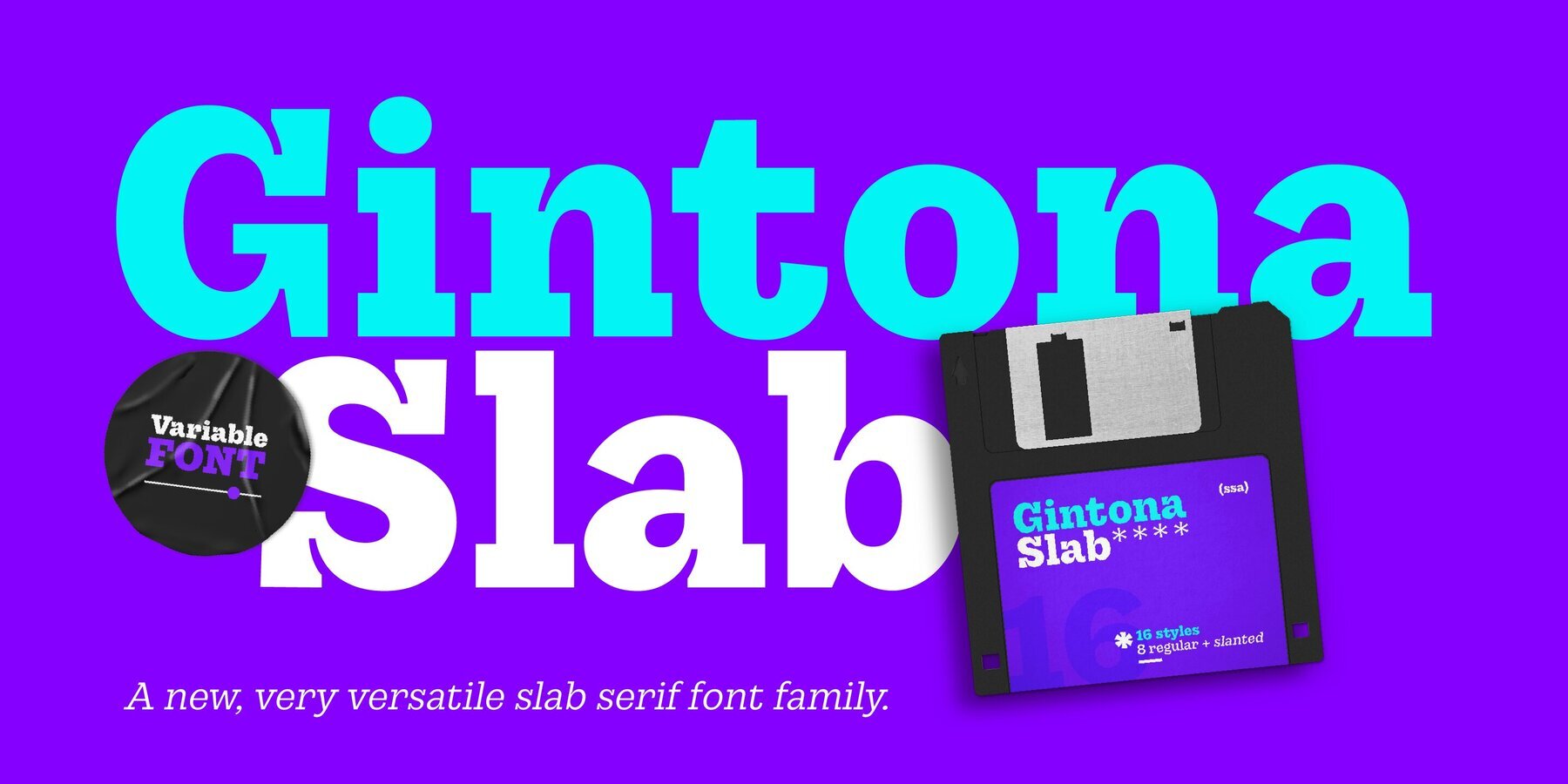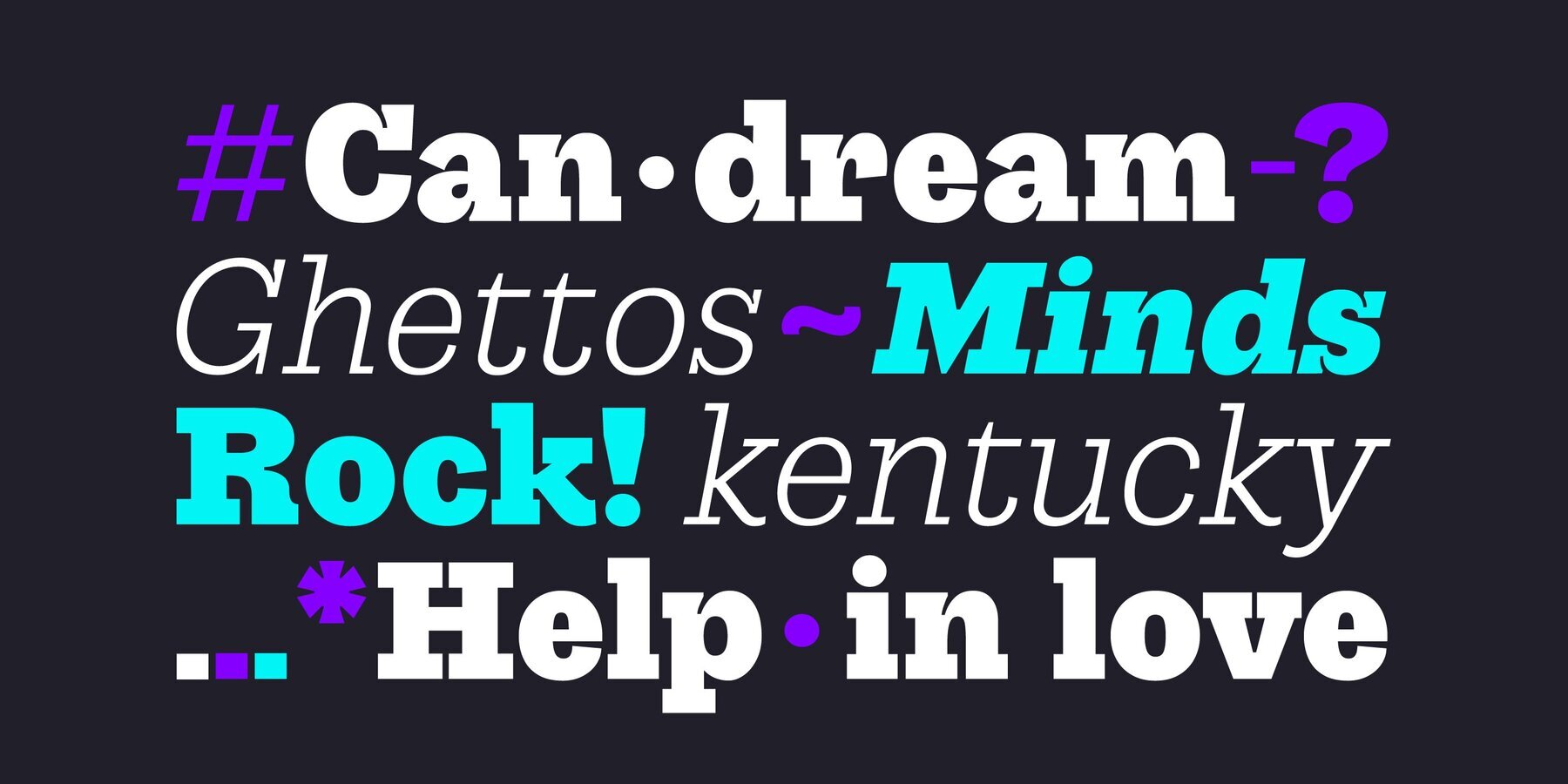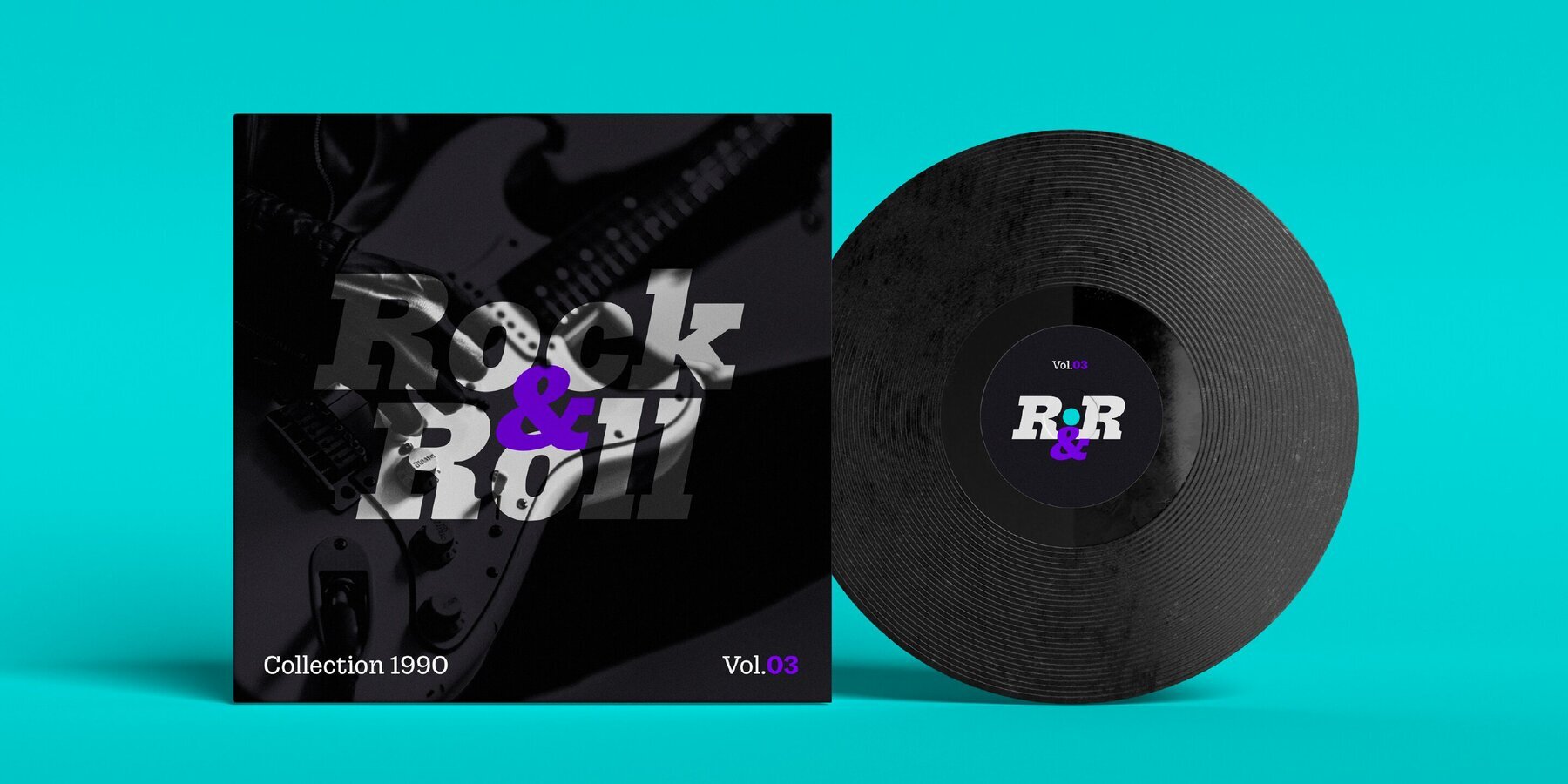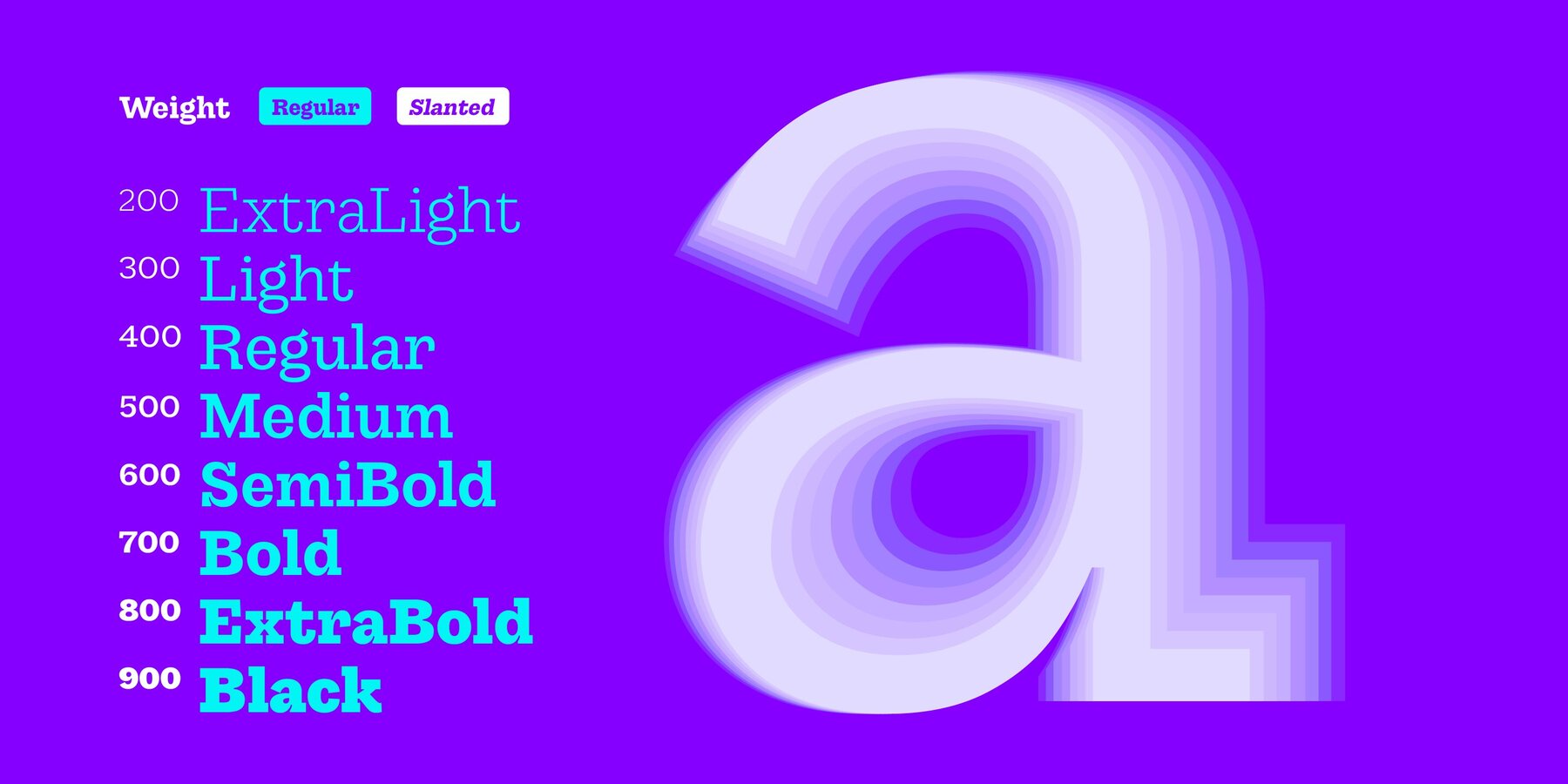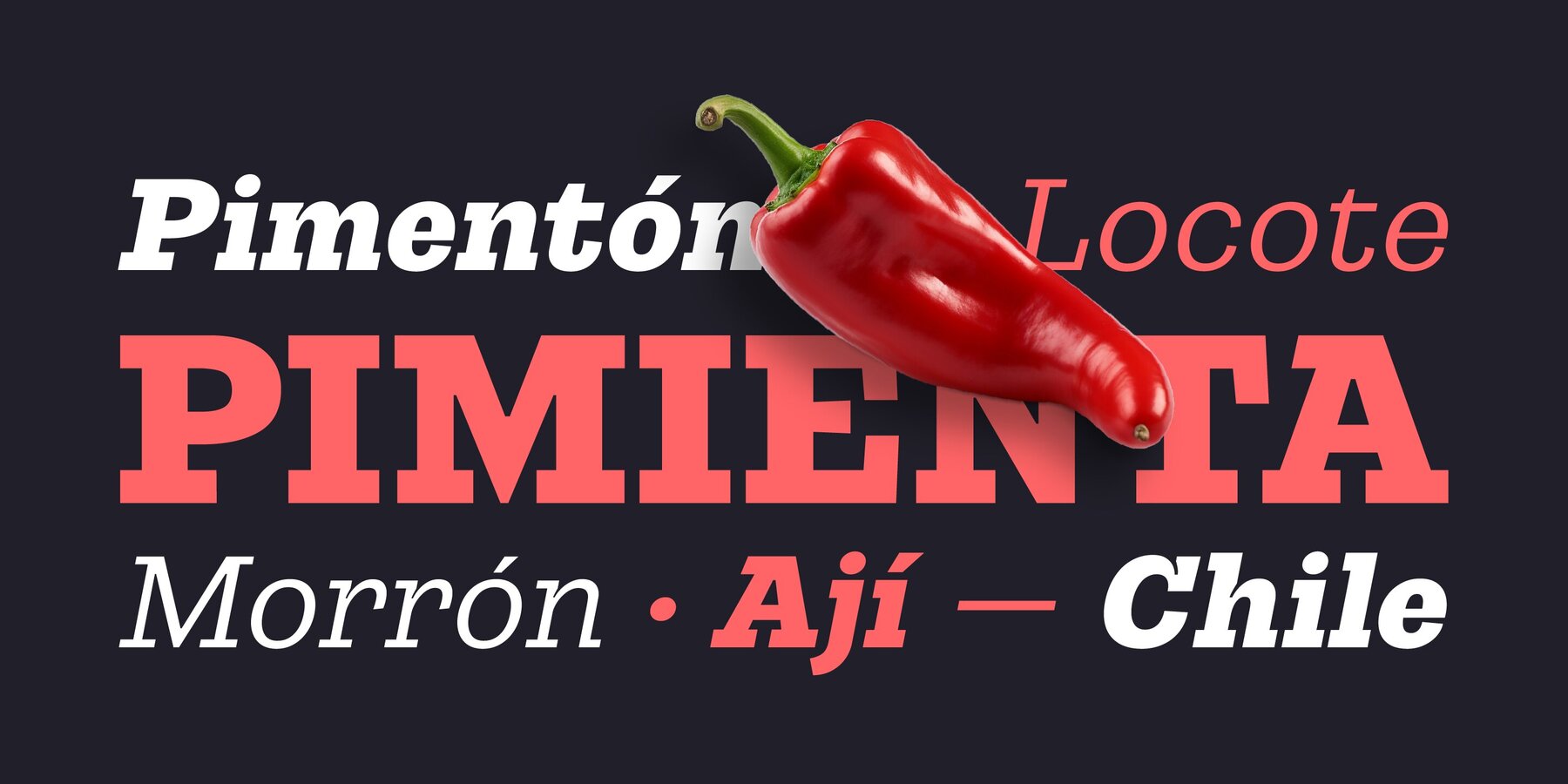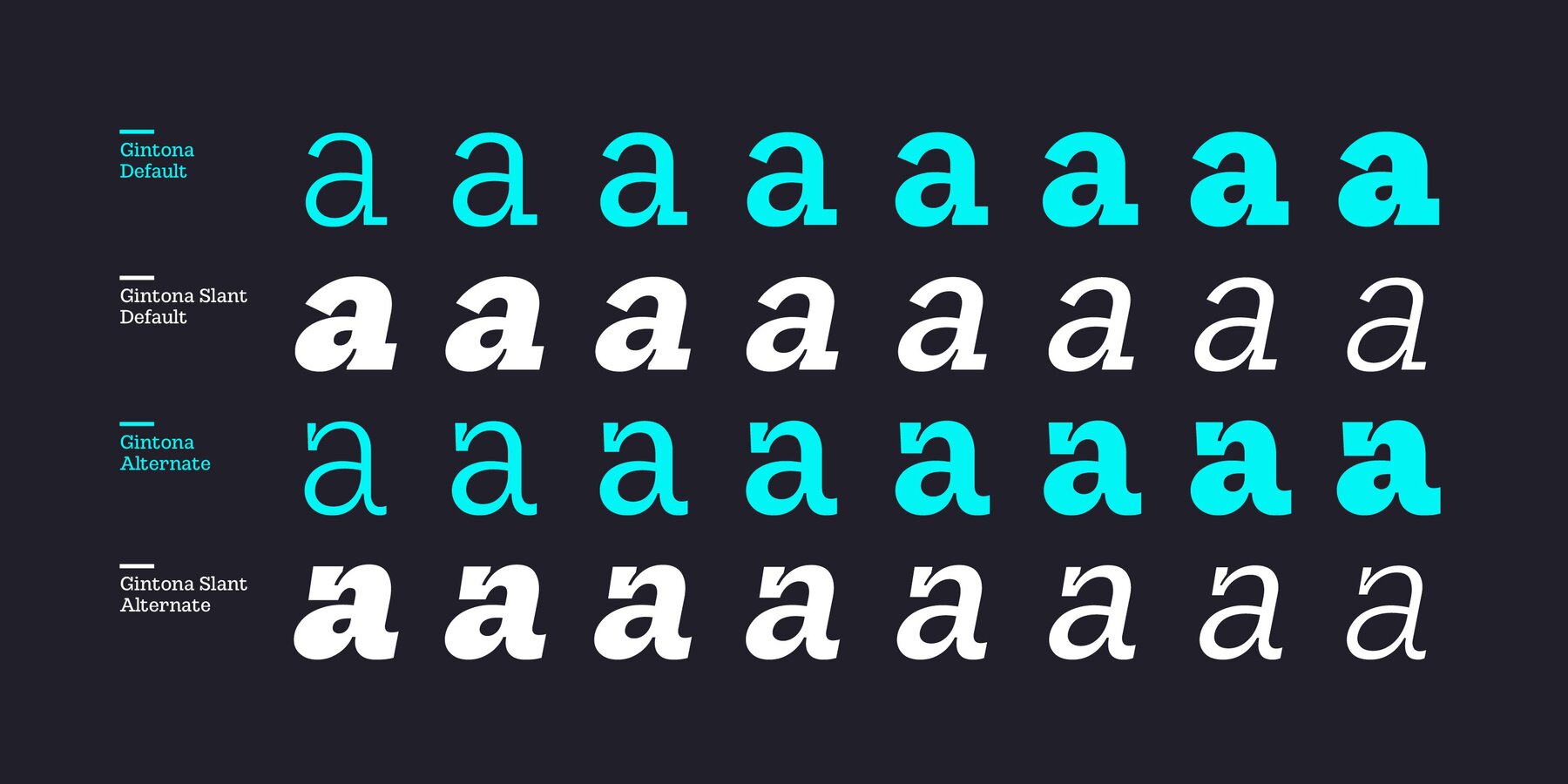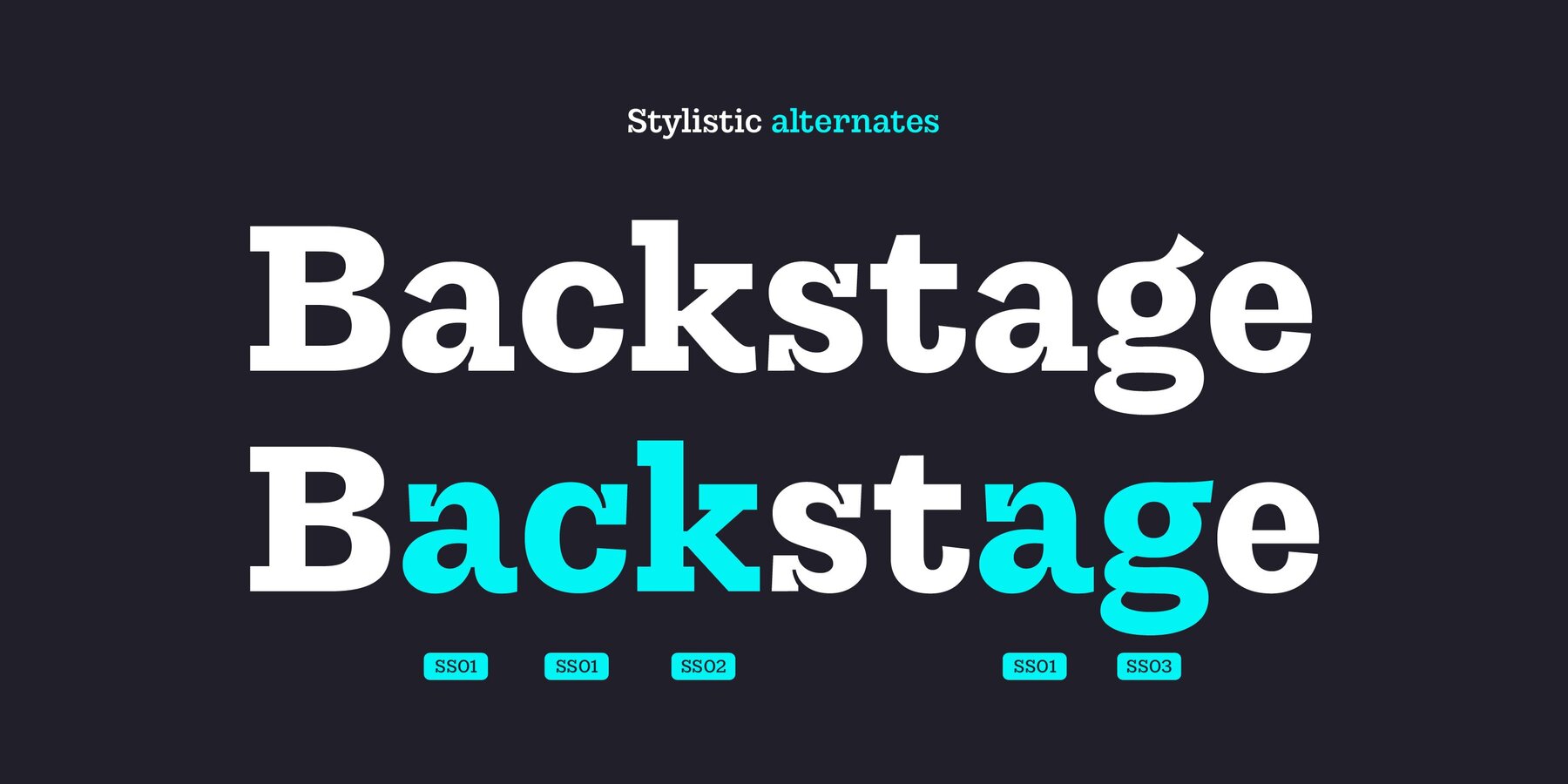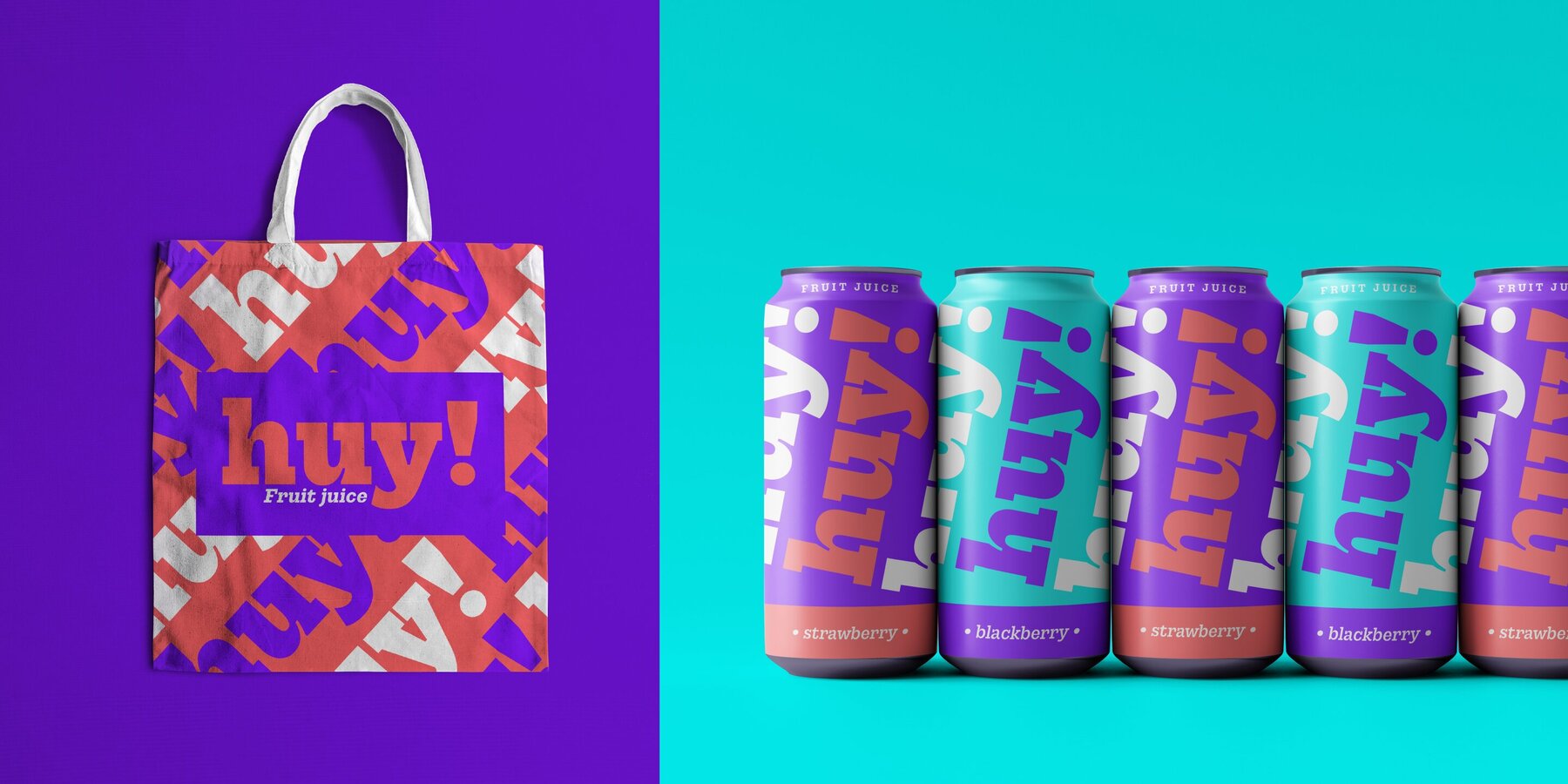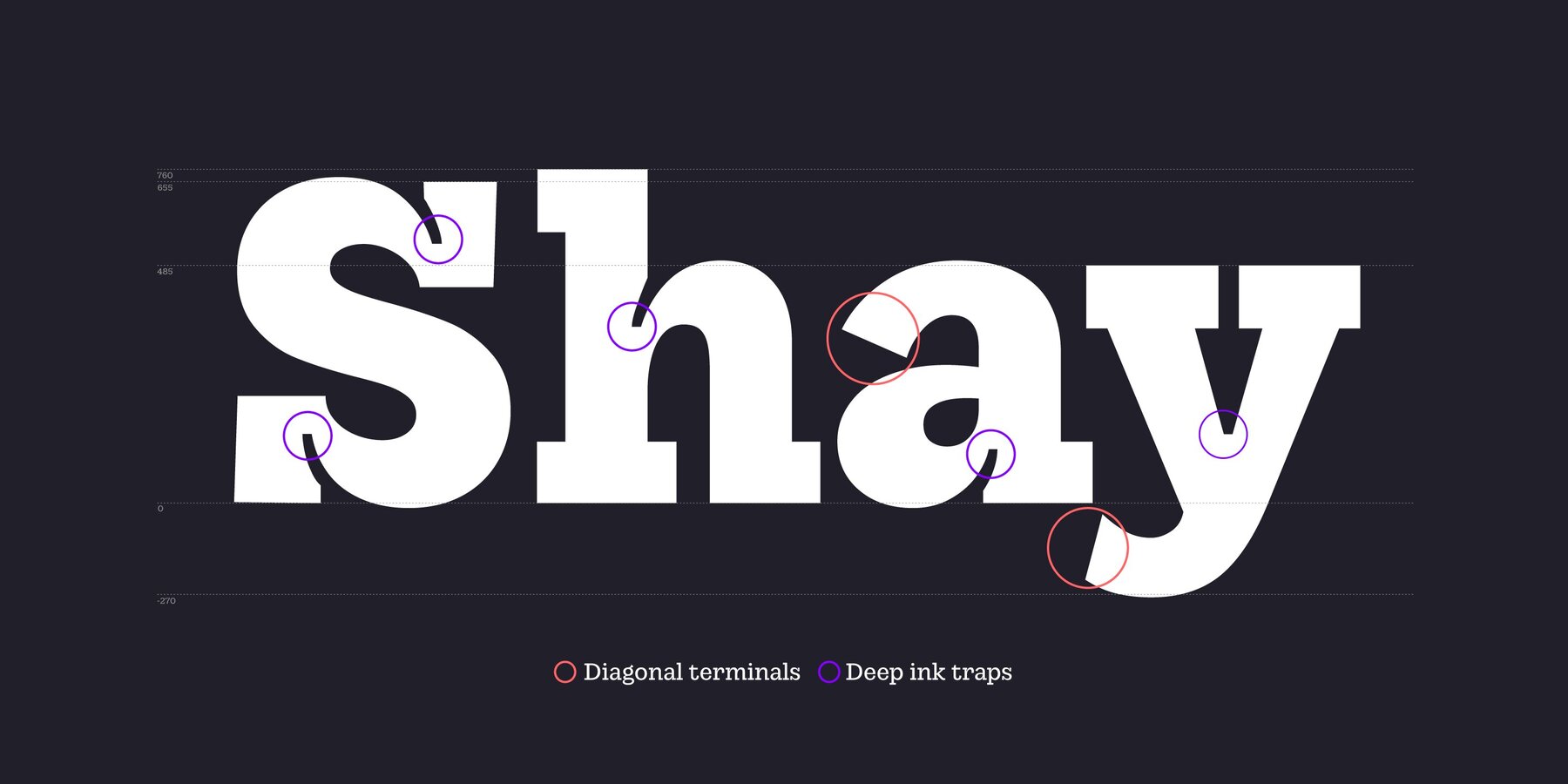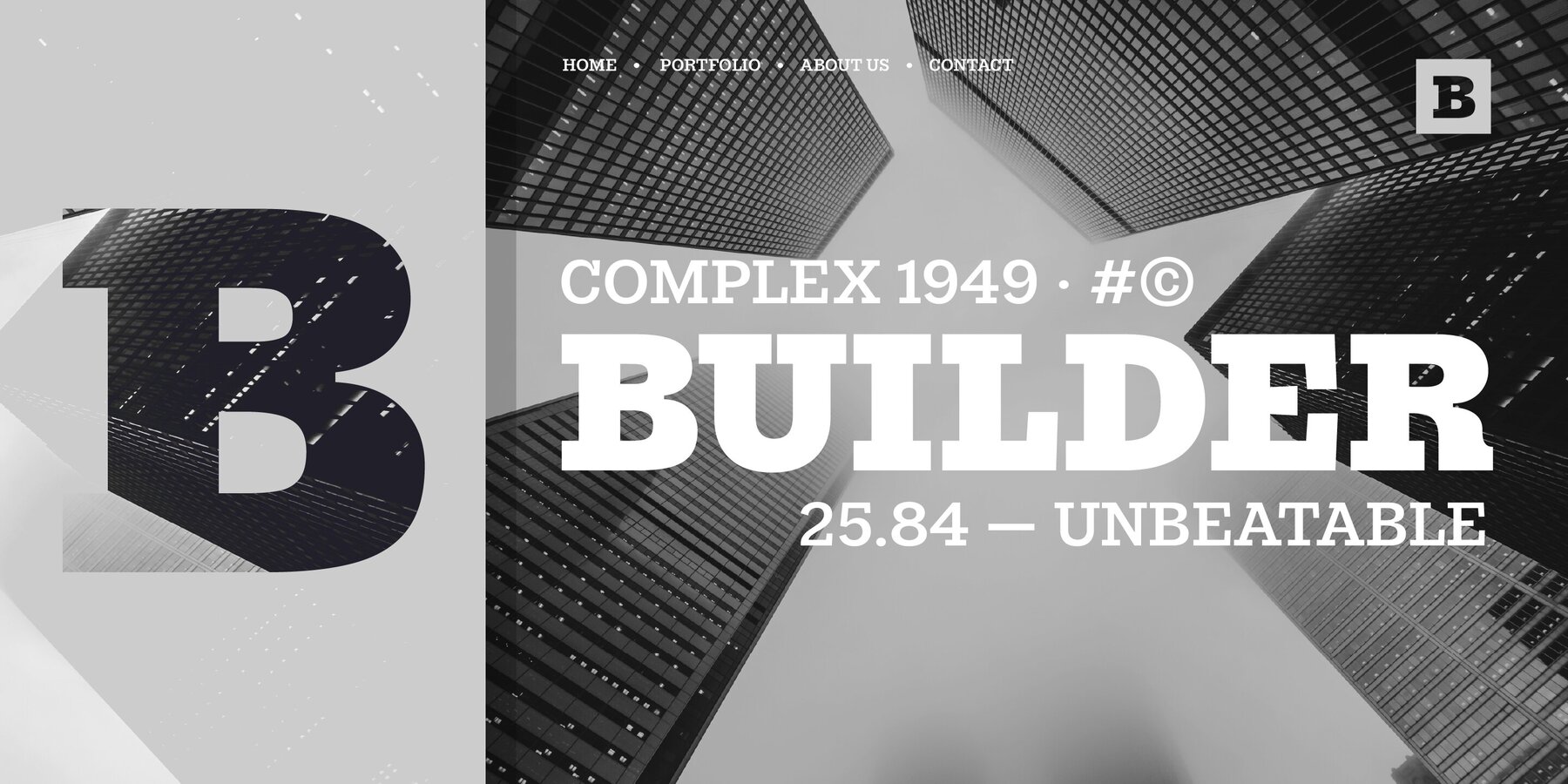
Gintona Slab Font
Gintona Slab is an extremely versatile slab serif font with 8 weights, ranging from delicately refined styles to bold and robust options. Additionally, Gintona Slab is available as a variable font, allowing for weight variations within a single file. Its design combines traditional elements, such as thick serifs and pronounced ink traps, used primarily as a stylistic resource. The diagonal terminals and organic shapes give it a warm and dynamic appearance. Gintona Slab is a robust, fresh, and modern typeface that will add a distinctive touch to your projects. It is the perfect choice for editorial work, logos, packaging, or advertising material seeking to make a significant visual impact.